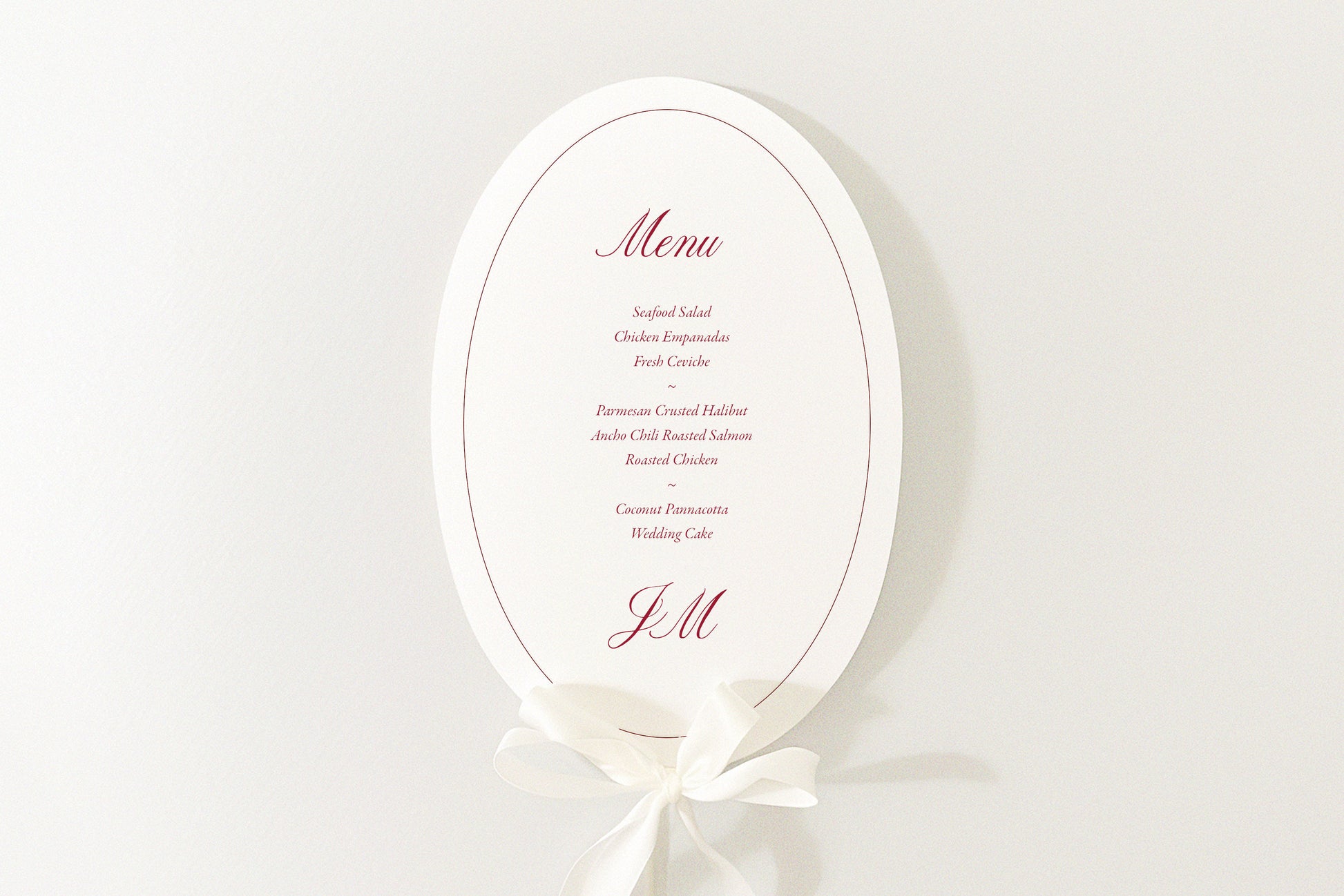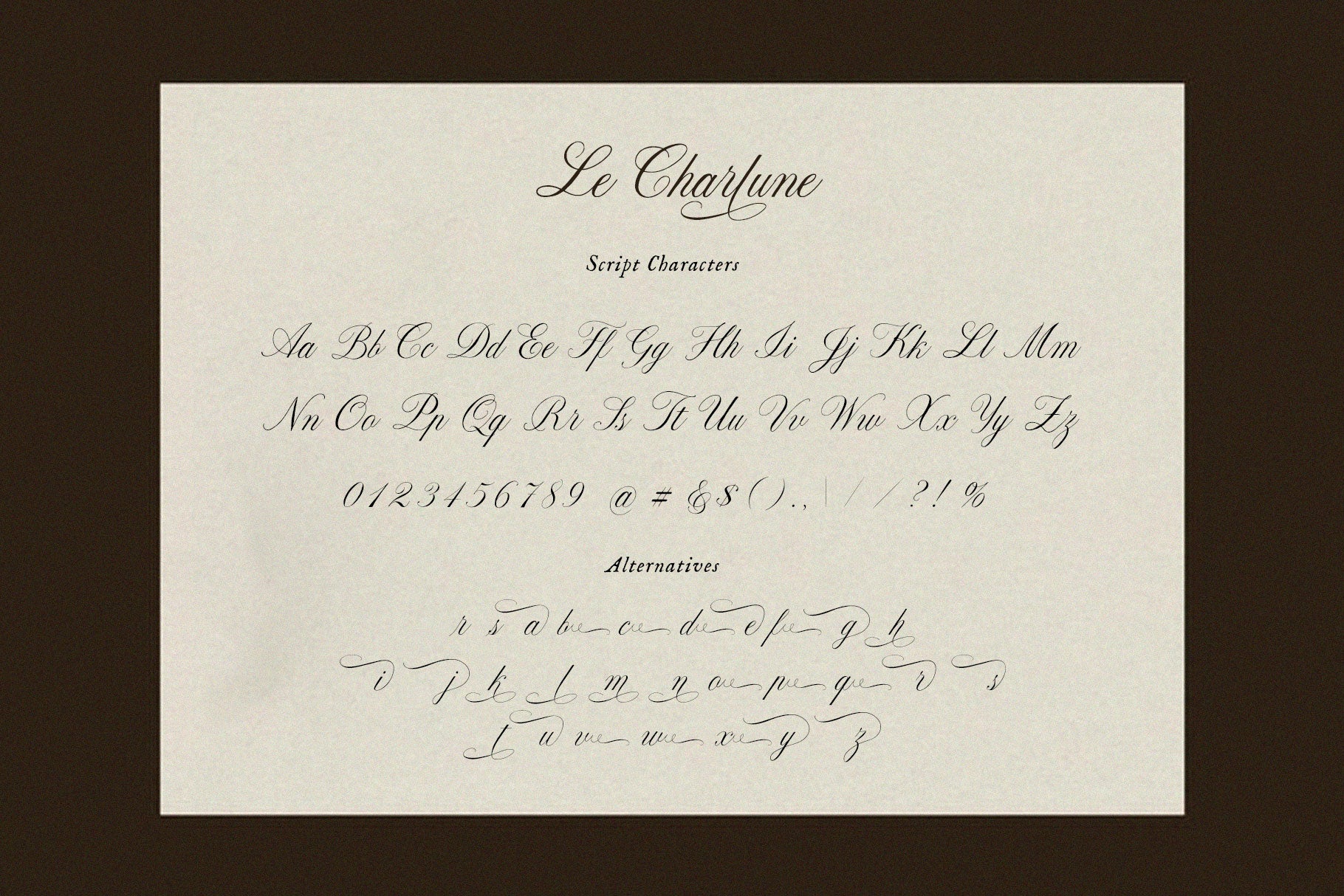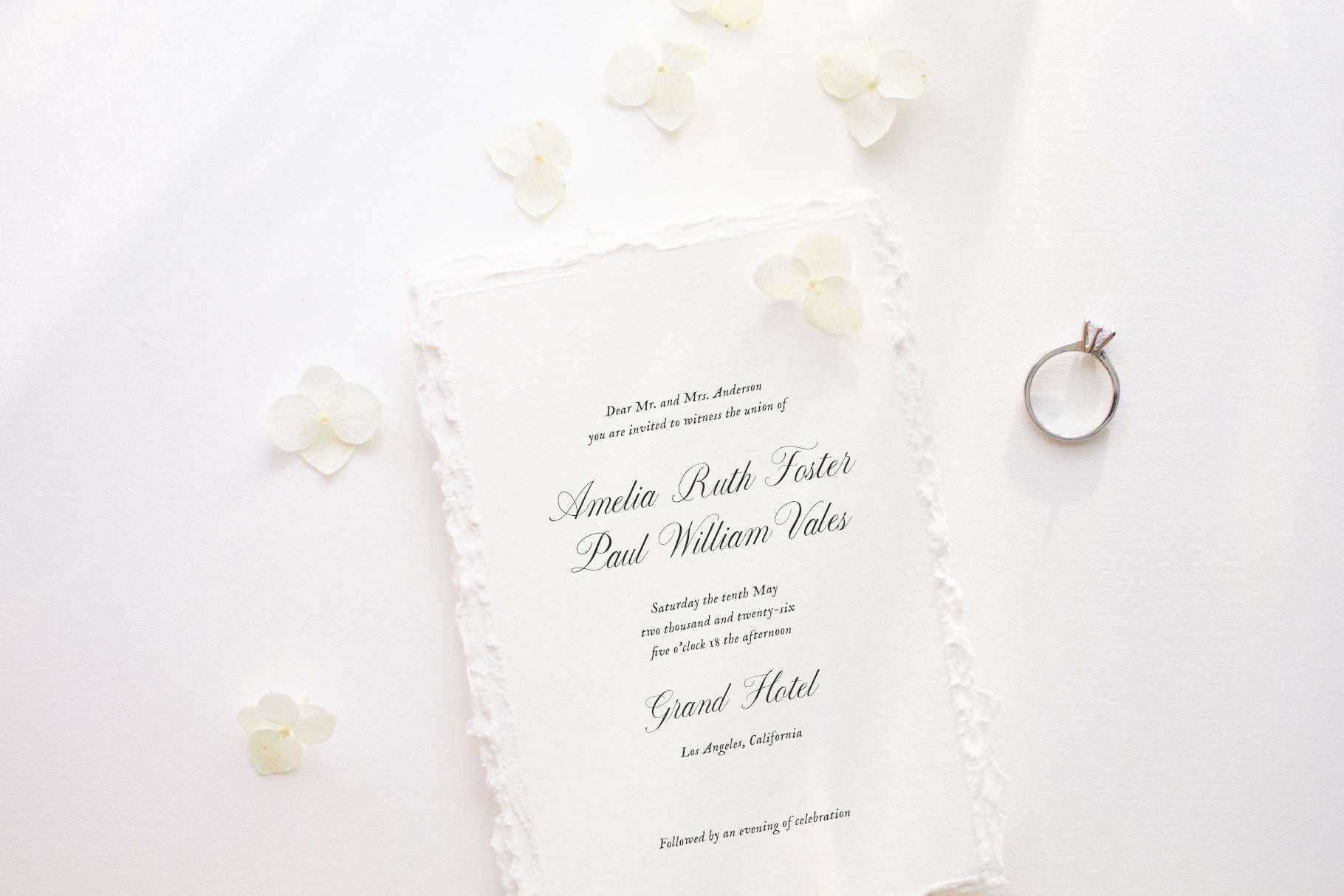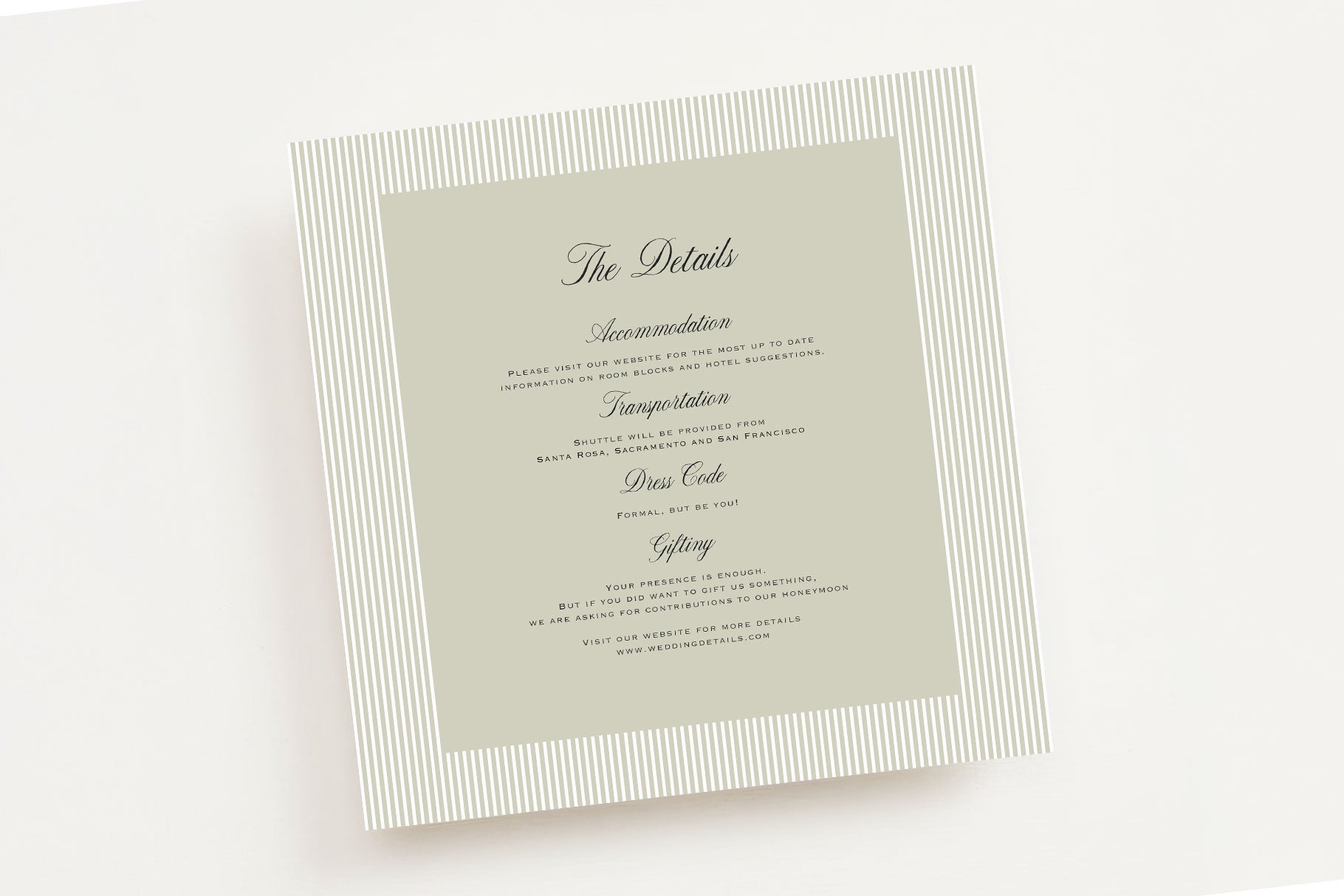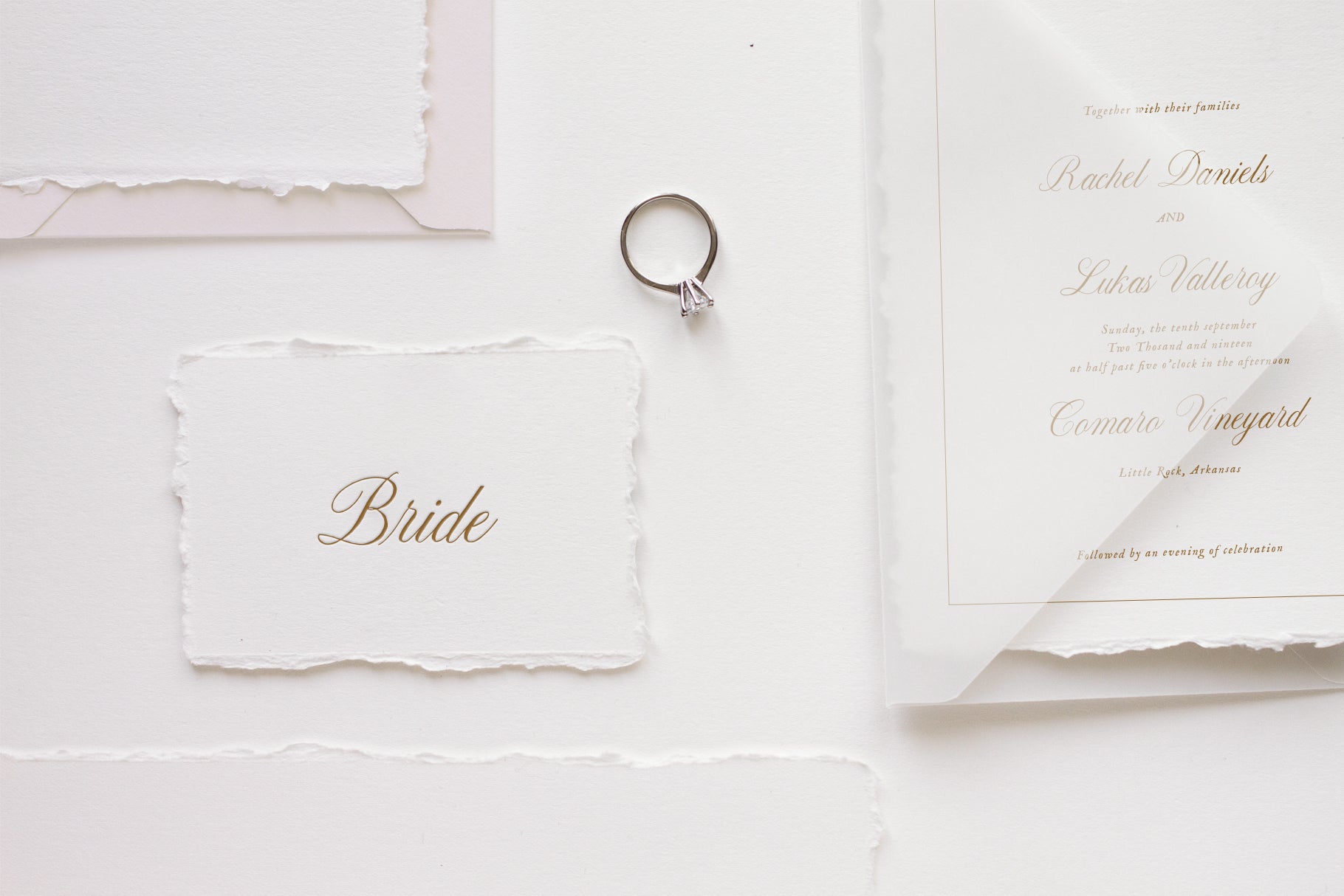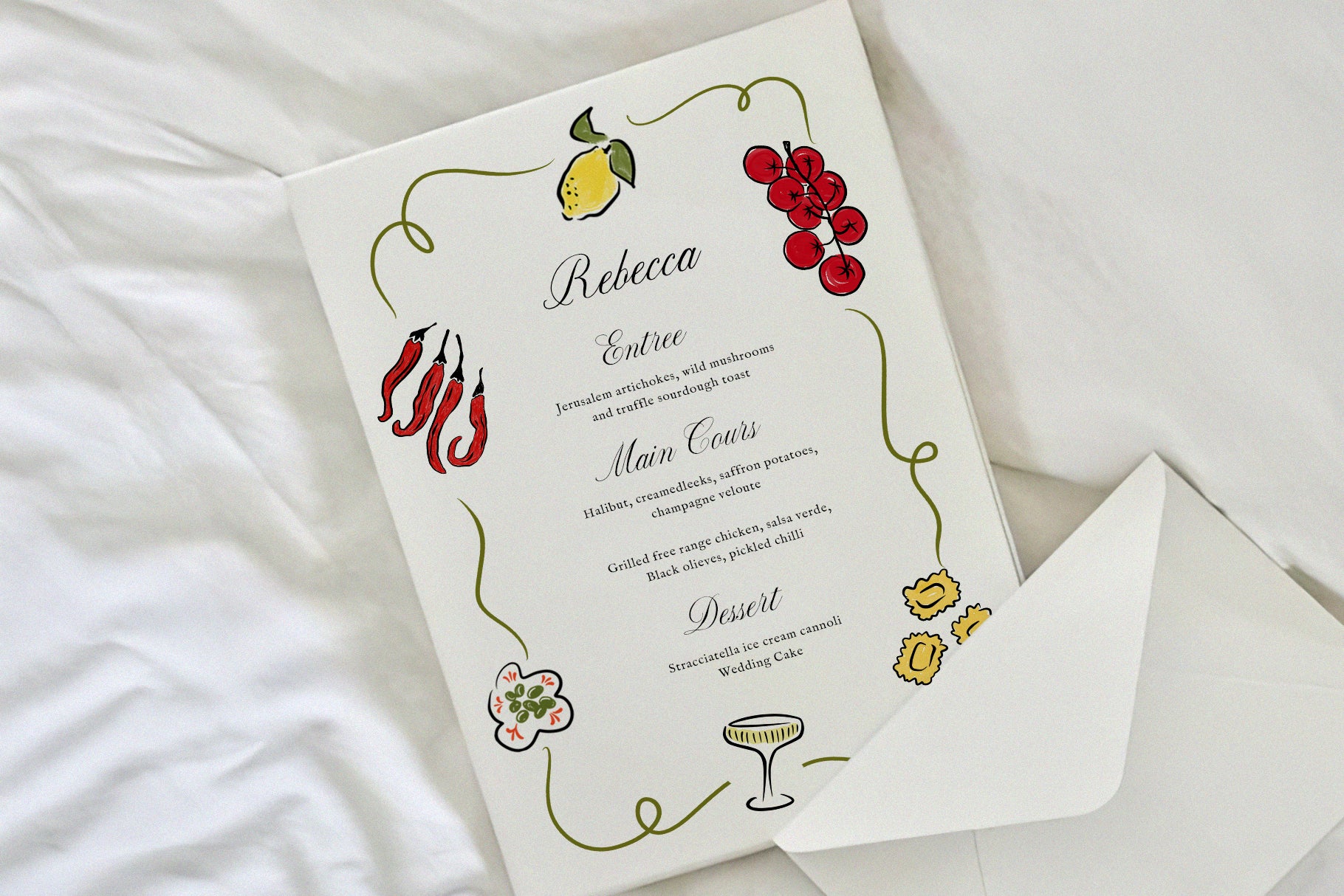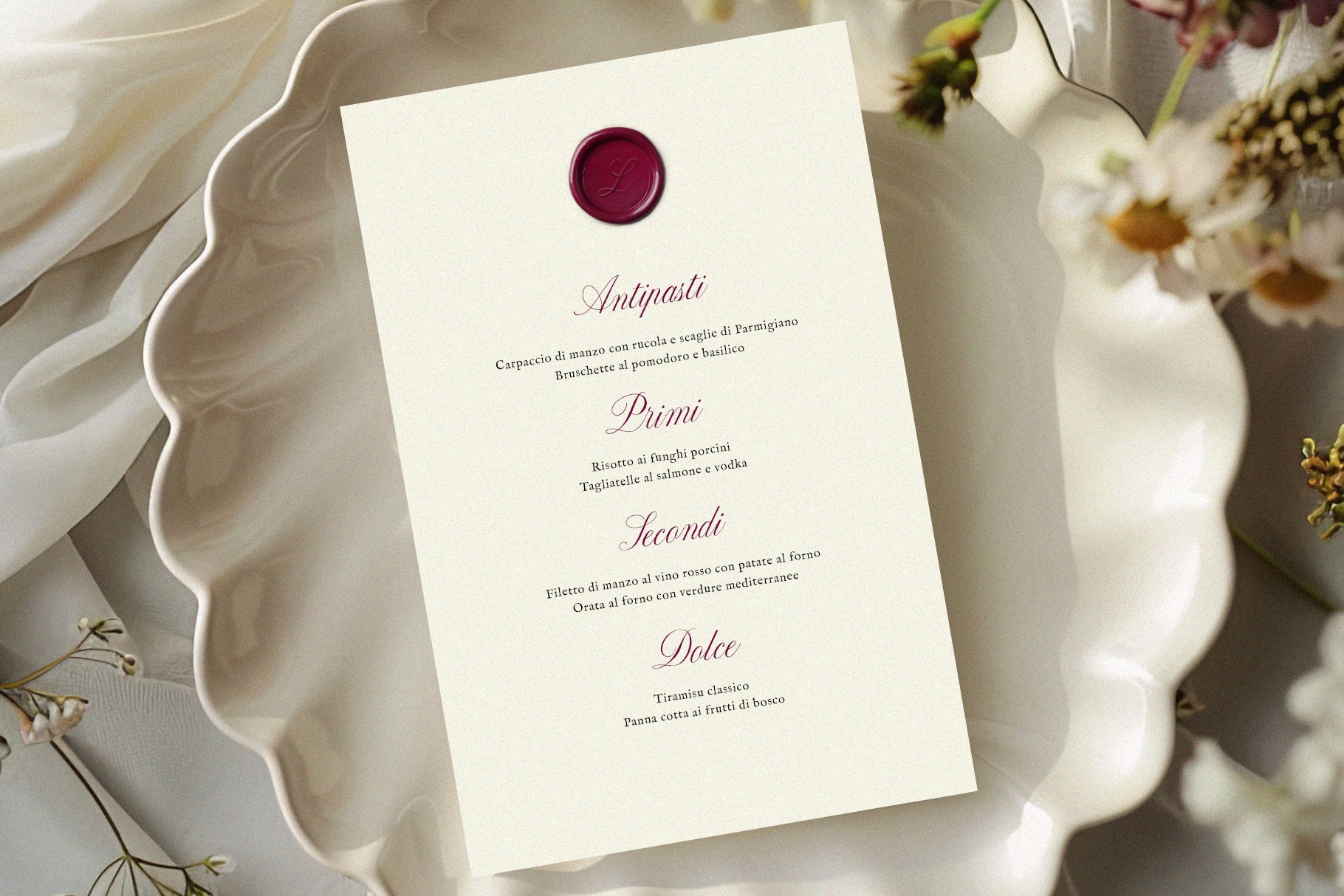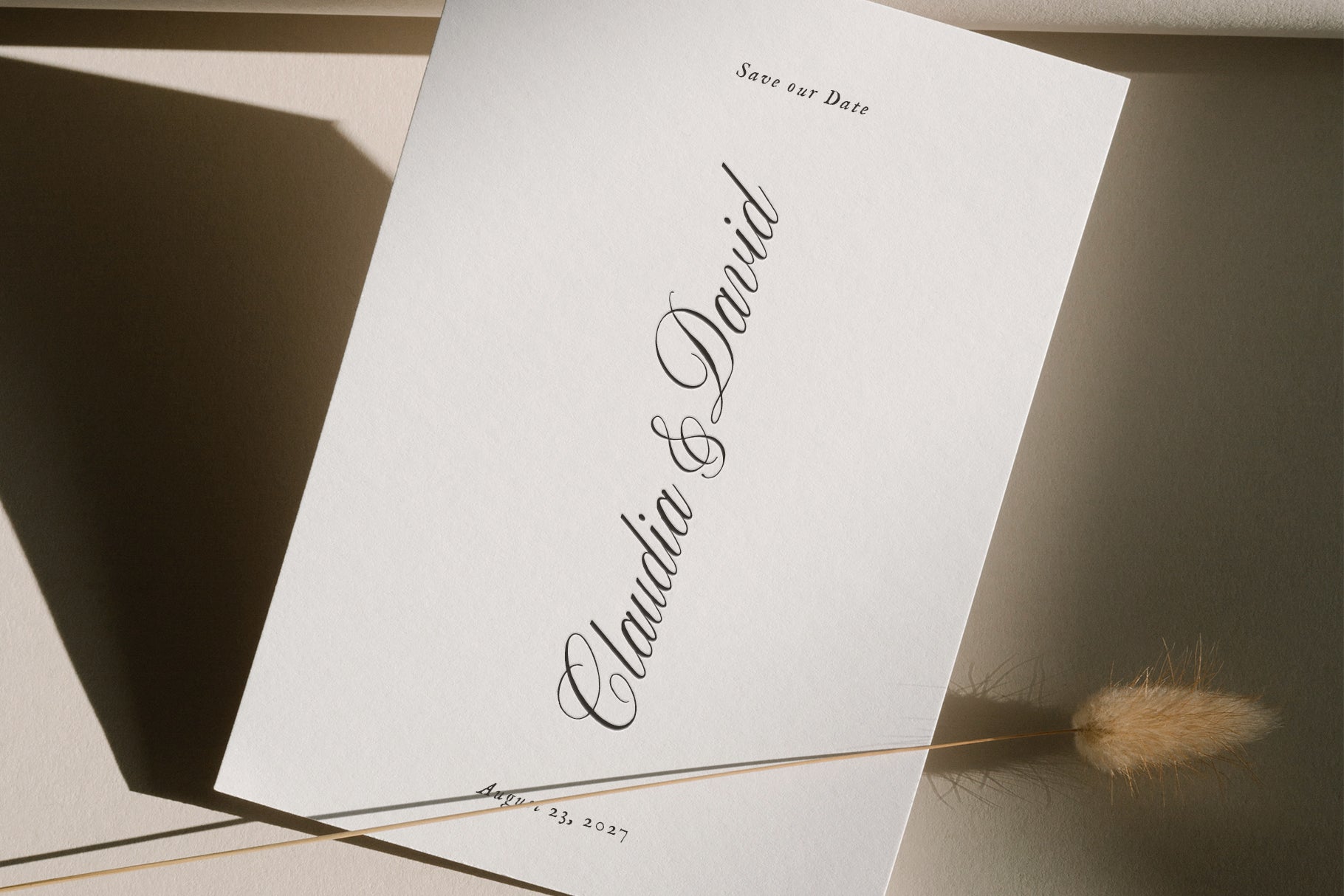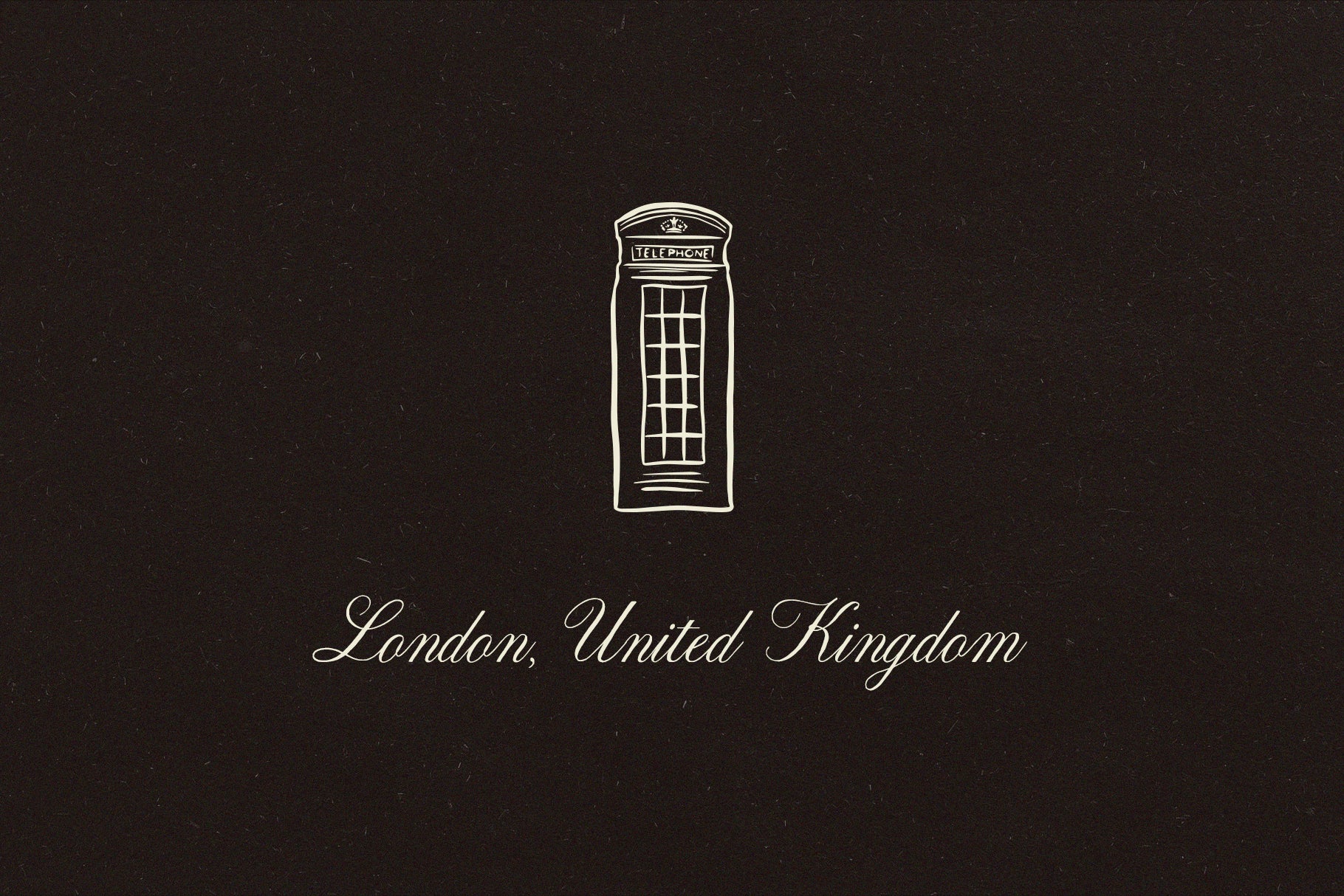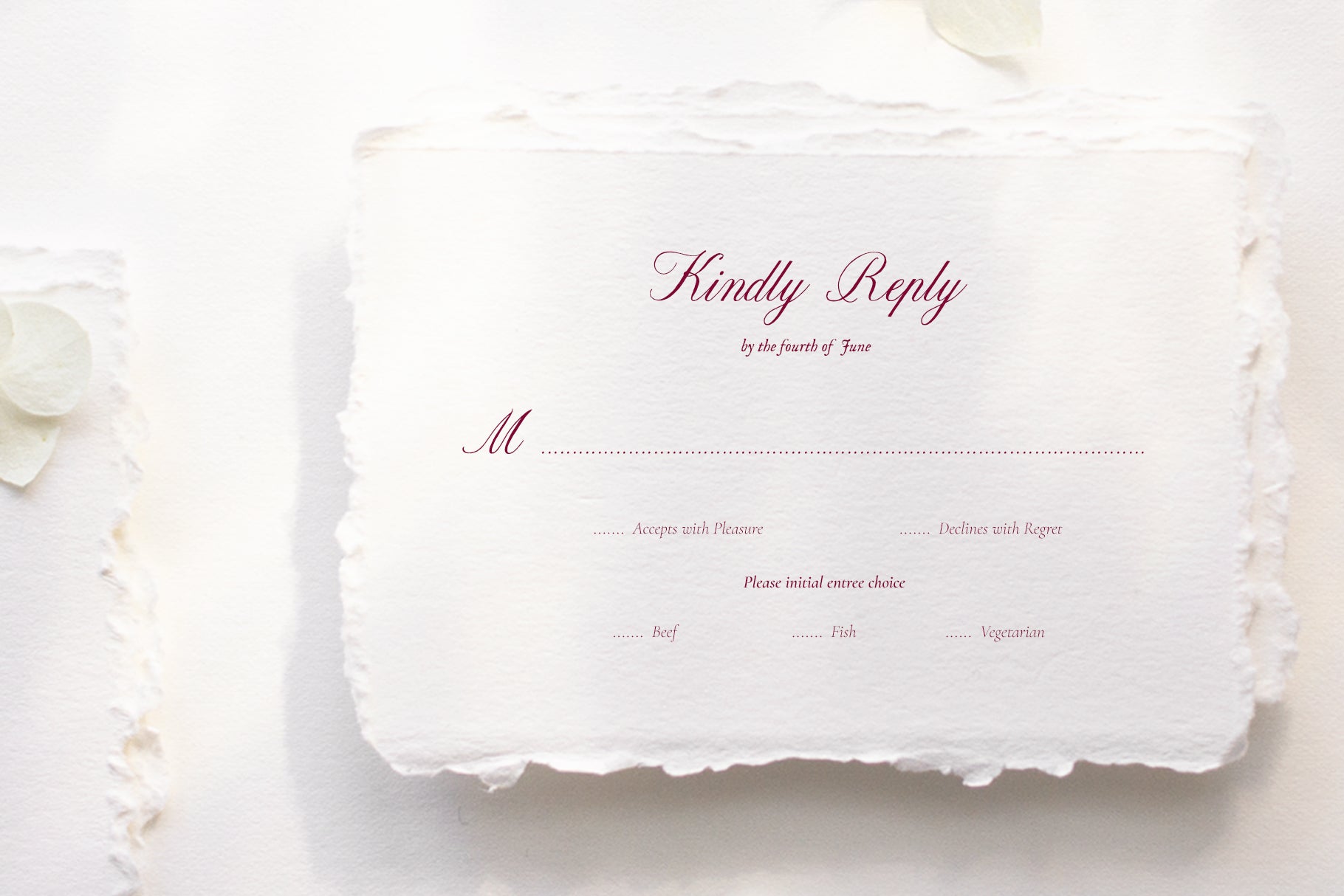
Meet the new font - La Charlune. This font blends the timeless elegance of classic copperplate script with the warmth of hand-drawn texture. Graceful letterforms preserve the refined beauty of traditional calligraphy, while subtle irregular details reveal the charm of ink on paper. Perfect for wedding stationery, luxury branding, and any project that calls for sophistication with a human touch.